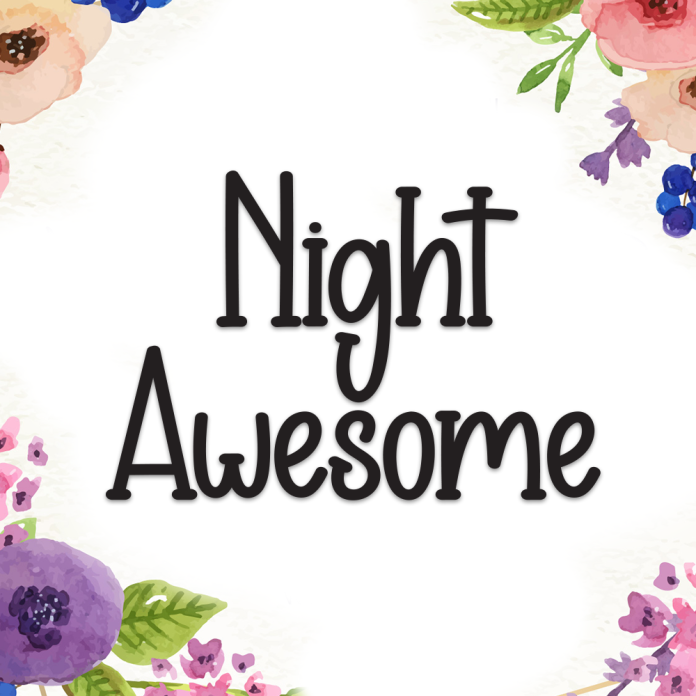
Night Awesome is a captivating display font with a bold personality and a mysterious edge. Inspired by starry nights and twilight adventures, this font blends charm and drama, making your text stand out effortlessly.
Perfect for posters, game titles, fantasy book covers, party invitations, and digital art, Night Awesome adds a magical nighttime flair to any creative project.
Display style with dramatic character
Eye-catching and unique letterforms
Great for titles, covers, logos, and digital design